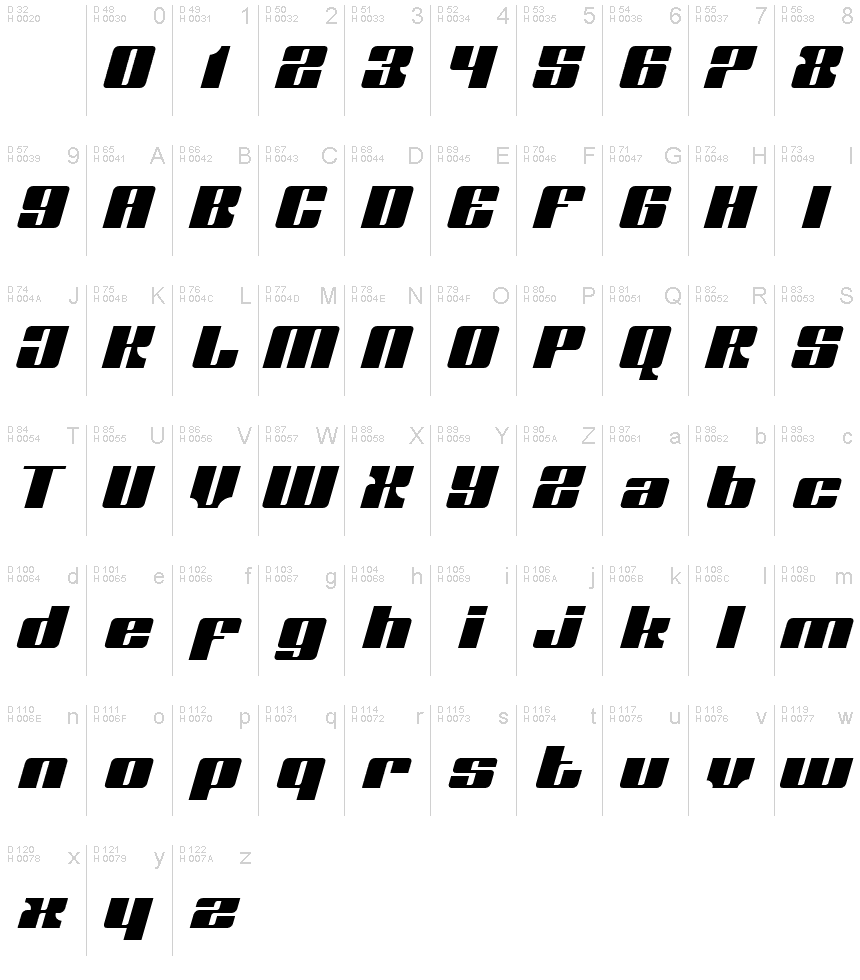
Kimura Display
Introducing Kimura Display, the bold and wide techno display font by Typologic. With its futuristic style, this font is perfect for projects that require a modern touch such as technology websites, sci-fi movie posters, and video game graphics. Its bold weight ensures that your message will stand out and be noticed while its wide width adds a unique edge to your design. Whether you're creating an app interface or designing a brochure, Kimura is the must-have font for all your display needs. Elevate your designs with Kimura today!